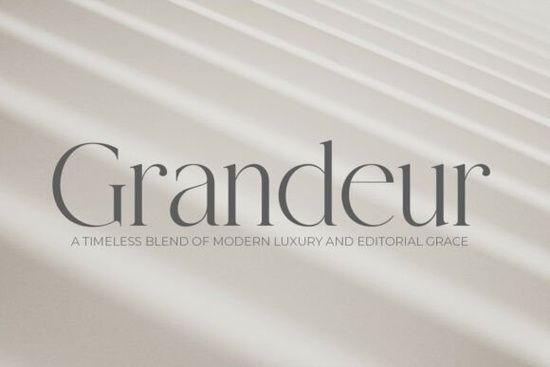
If you're working on a project that calls for sophistication without shouting for attention, Grandeur – Elegant Classic Serif Font might be exactly what your design needs. Inspired by centuries of refined typography and print craftsmanship, Grandeur brings together the grace of historic serifs with the clean sensibility of modern editorial design. It’s not flashy but it doesn’t need to be. Its high-contrast strokes, balanced proportions, and subtle detailing give your work a quiet confidence that resonates in luxury branding, editorial layouts, and premium packaging.
Why choose Grandeur for luxury or minimalist projects?
Grandeur excels where restraint speaks louder than ornamentation. Think black-and-white fashion spreads, boutique hotel stationery, or upscale real estate brochures contexts where every visual element must feel intentional. The font’s vertical stress and crisp serifs echo classic typefaces like Didot or Bodoni, but with a slightly softened touch that keeps it from feeling cold or dated.
Because of its open spacing and strong x-height, Grandeur remains highly legible even at smaller sizes, making it practical for both headlines and short body copy. That versatility is rare in display serifs, which often sacrifice readability for drama.
What kinds of projects suit this font best?
Designers have used Grandeur across a range of elevated applications:
- Luxury brand identities – from skincare labels to jewelry packaging
- Editorial design – magazine mastheads, feature spreads, and bylines
- Architectural and interior design portfolios – where clean lines mirror spatial aesthetics
- Wine and spirits labeling – especially for heritage-inspired or small-batch producers
- Wedding stationery – when couples want timeless elegance over trendy flourishes
It pairs beautifully with minimalist photography, ample white space, and neutral color palettes. Avoid cluttering the layout; let the typeface breathe.
Grandeur stands apart by prioritizing understatement. It doesn’t rely on exaggerated contrast or quirky details it earns its elegance through proportion and rhythm. That makes it a reliable anchor for professional projects where consistency and credibility matter.
Can hobbyists and small businesses use Grandeur effectively?
Absolutely. You don’t need to be a seasoned typographer to benefit from Grandeur’s clarity. Print-on-demand sellers crafting premium product tags, Etsy shop owners designing logo marks for handmade goods, or wedding planners creating invitation suites can all leverage its polished aesthetic. The key is pairing it thoughtfully:
- Use it for headings or short phrases not dense paragraphs
- Stick to one or two complementary fonts (a simple sans-serif like Helvetica or Inter works well)
- Limit your color scheme to 2–3 tones max; black, cream, charcoal, or muted metallics enhance its refinement
Even if your tools are basic Canva, Adobe Express, or Affinity Publisher Grandeur adds instant credibility when applied with intention.
Before you commit: a quick checklist
- Is your project aiming for “quiet luxury” or timeless professionalism? If yes, Grandeur fits.
- Do you have enough negative space in your layout? This font needs room to shine.
- Are you using it at an appropriate size? Best above 18pt for print, 20px+ for web.
- Have you tested readability? Print a sample or view it on multiple screens.
- Does it align with your brand voice? Grandeur whispers prestige it won’t work for playful or casual brands.
If most answers are “yes,” Grandeur could become a go-to in your creative toolkit for years to come.